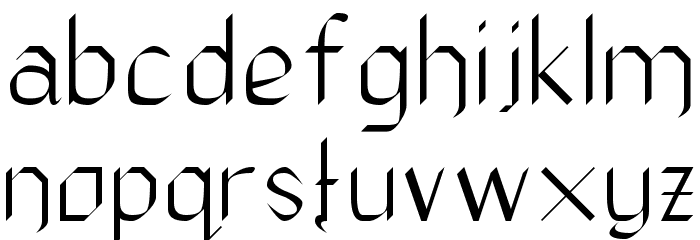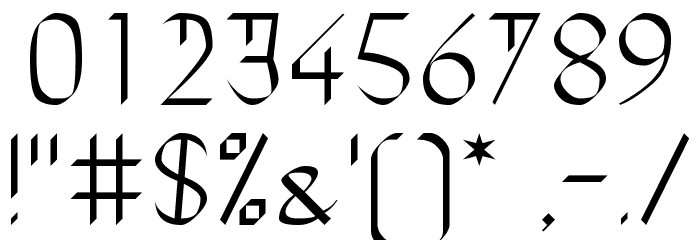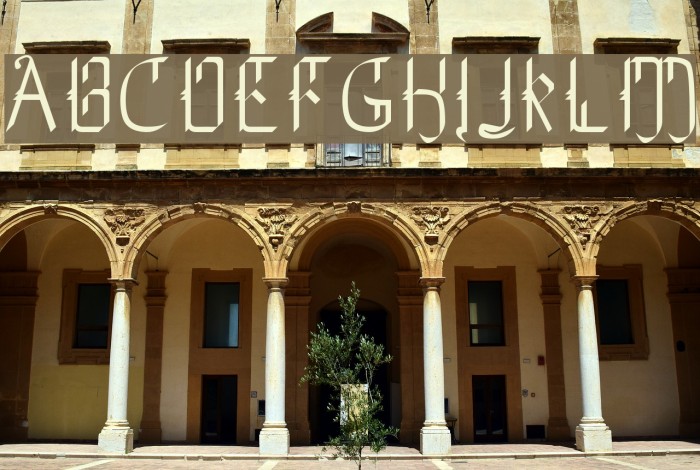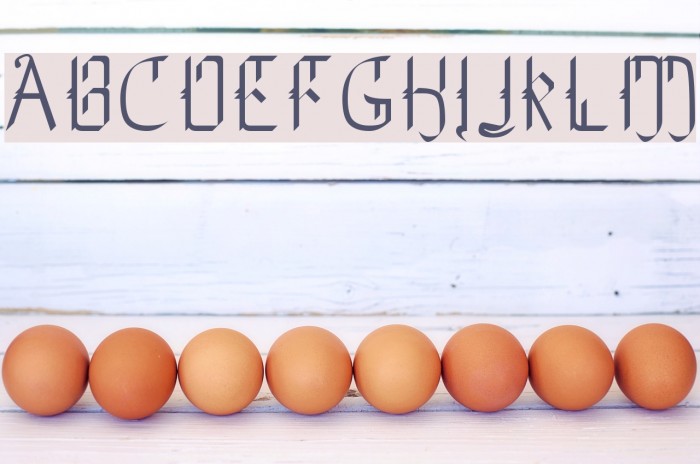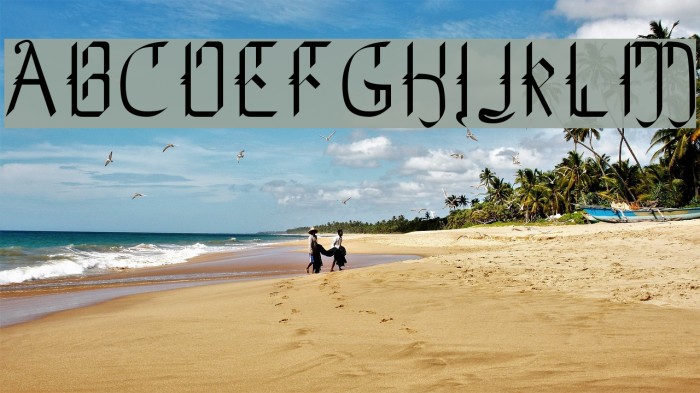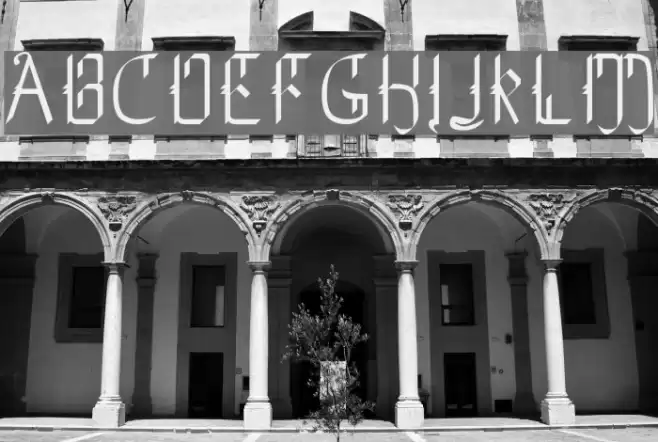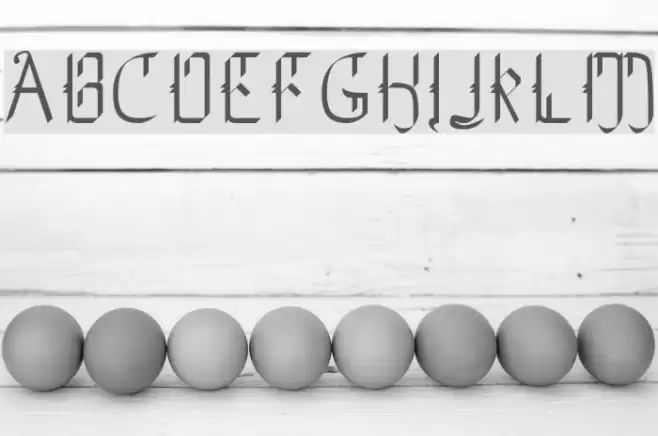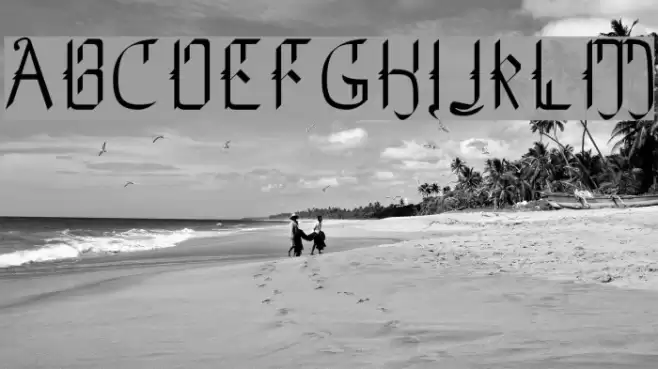
The Daily Blah Font
This font features a unique blend of modern and gothic elements, characterized by its sharp, angular lines and distinctive geometric shapes. The uppercase letters exhibit a bold presence with intricate cutouts, giving them a striking appearance. The lowercase letters maintain a consistent style, with elongated forms and pointed edges that enhance the font's dramatic flair. Numbers and special characters follow the same design principles, ensuring a cohesive look throughout. The overall style is both artistic and edgy, making it suitable for projects that require a bold statement.
A modern gothic font with sharp, angular lines and geometric shapes.
- Overall Style: Modern, Gothic